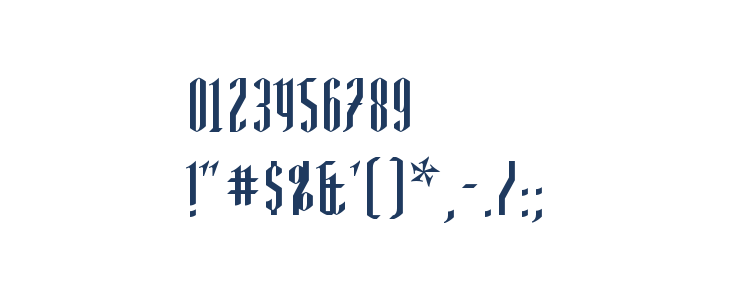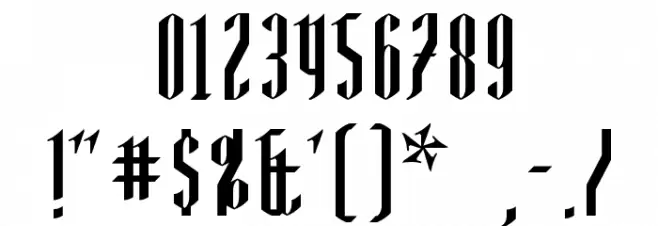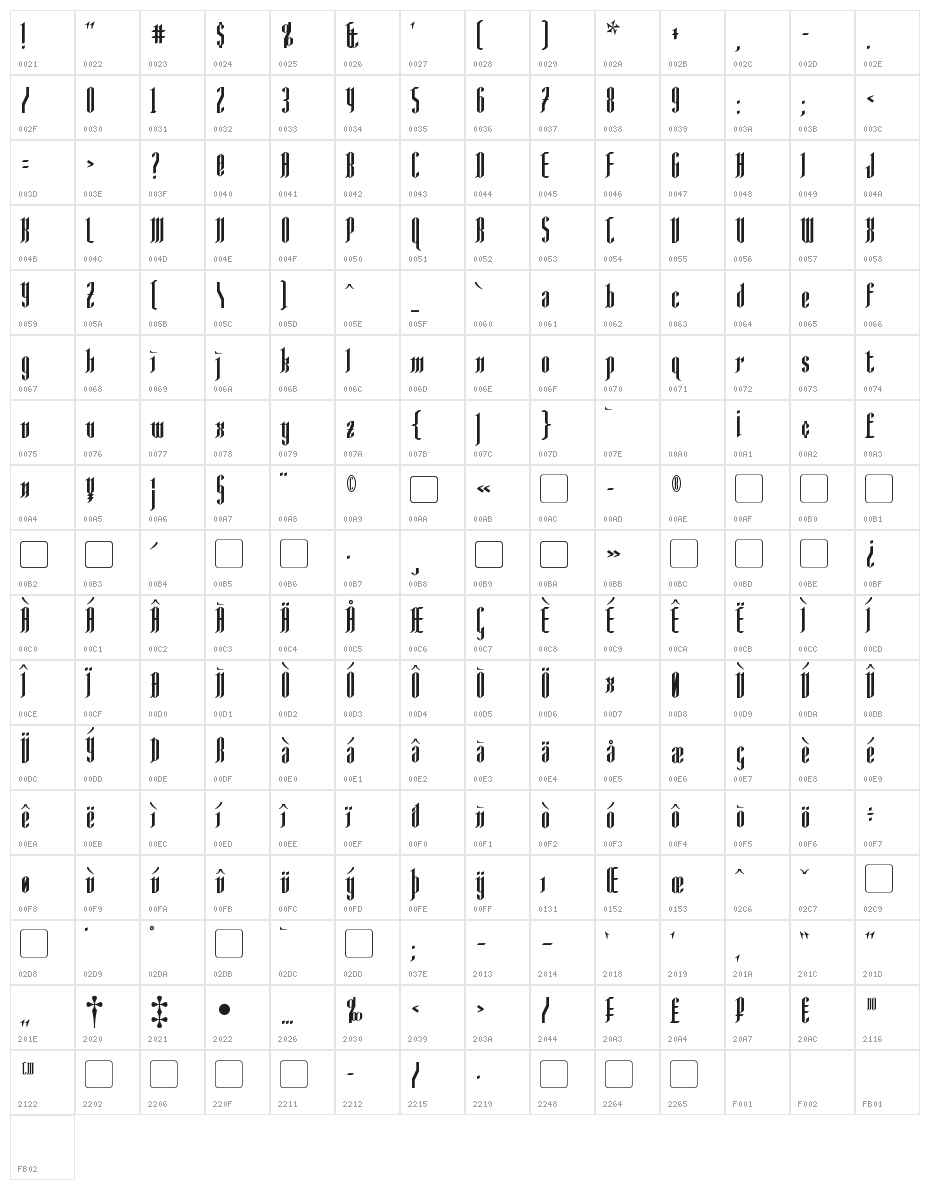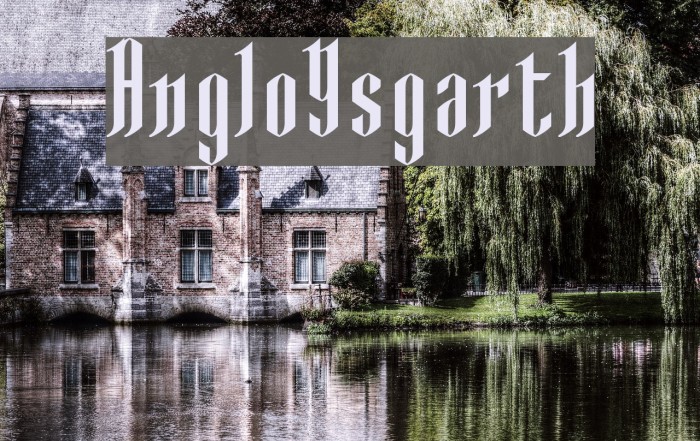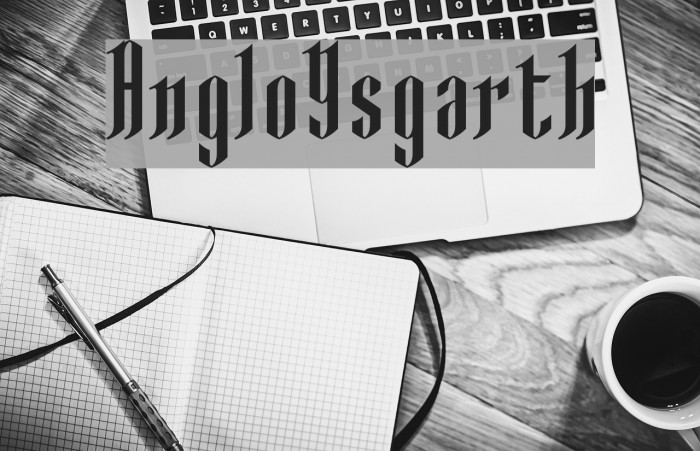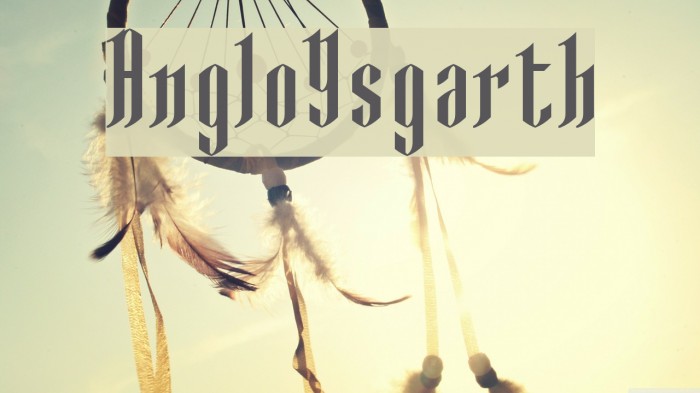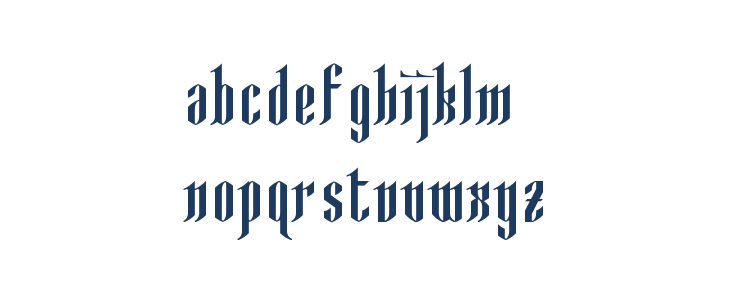
AngloYsgarth Font
AngloYsgarth Description
This font is a striking example of Blackletter style, characterized by its dramatic, angular strokes and intricate detailing. The uppercase letters exhibit a strong vertical emphasis with sharp, pointed serifs and elaborate flourishes, giving it a distinctly Gothic appearance. The lowercase letters maintain the same angularity, with unique features such as the elongated descenders and ascenders that add to its ornate aesthetic. The numerals are consistent with the overall style, featuring sharp angles and a bold presence. Special characters are equally elaborate, with a mix of traditional and decorative elements. This font's high contrast between thick and thin strokes enhances its bold and authoritative look, making it ideal for projects that require a historical or formal touch.